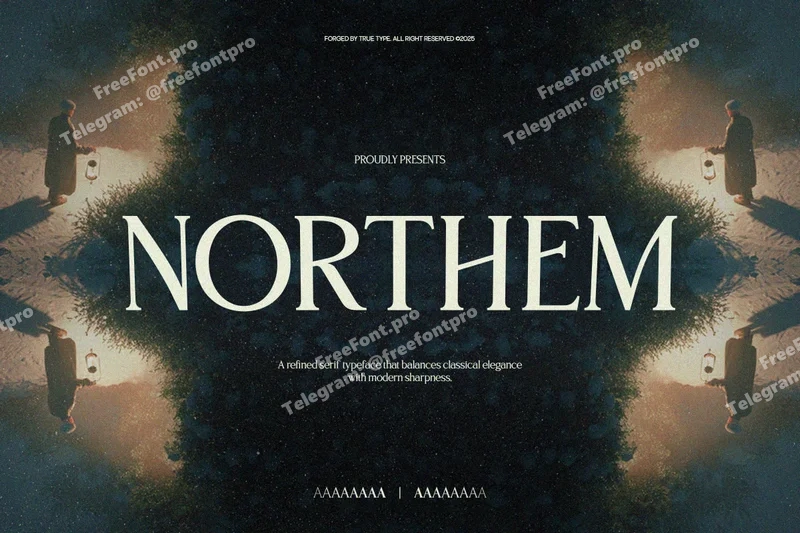
Northem Elegant Seri
TBJ Northem is an elegant serif font family crafted to bring sophistication and timeless beauty to your designs. With refined proportions and smooth contrast, it blends classic charm with modern functionality.
Designed for versatility, TBJ Northem works gracefully across editorial layouts, branding systems, book covers, packaging, and digital platforms. Its calm character and carefully tuned details offer both readability and elegance — ideal for projects that require a strong yet graceful typographic voice.
TBJ Northem provides a harmonious balance between structure and softness, making it suitable for both display and text sizes. Whether you’re designing a luxury brand, a high-end magazine, or a professional presentation, TBJ Northem delivers clarity and poise to elevate your visual storytelling.